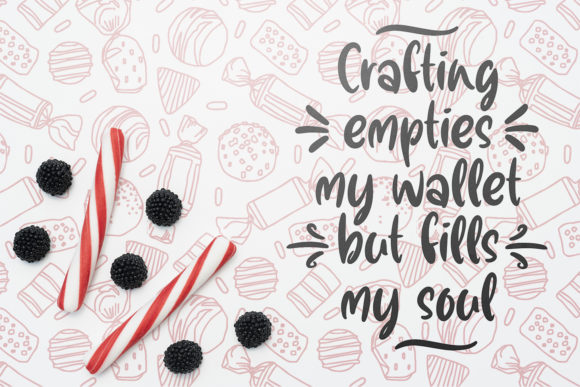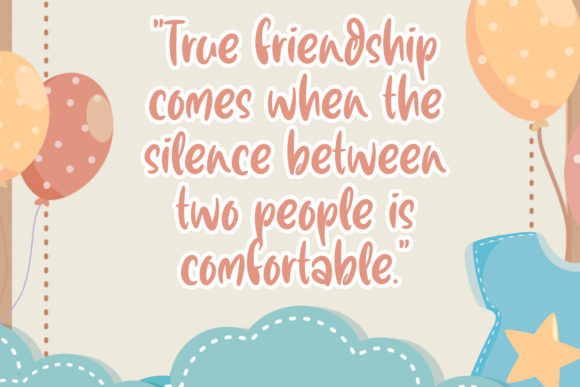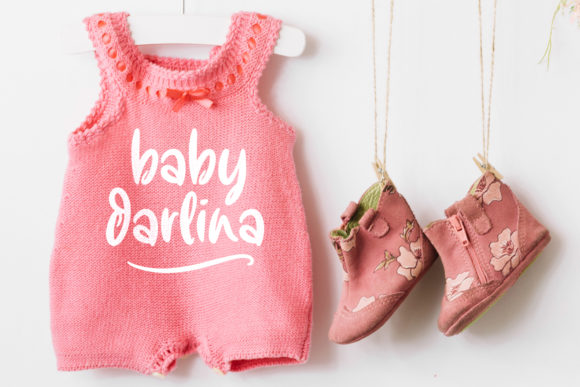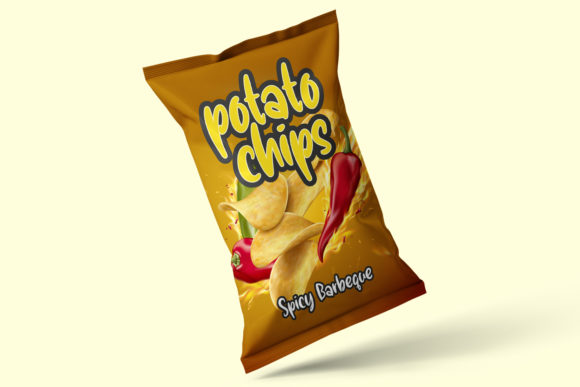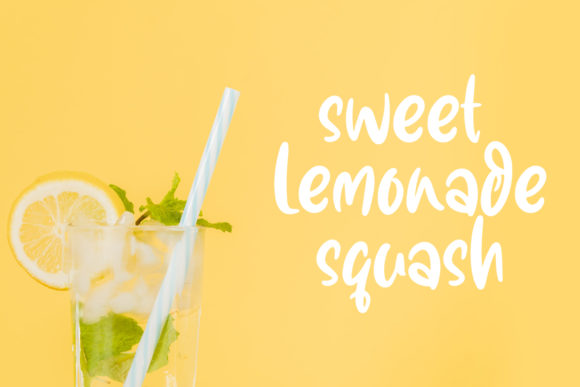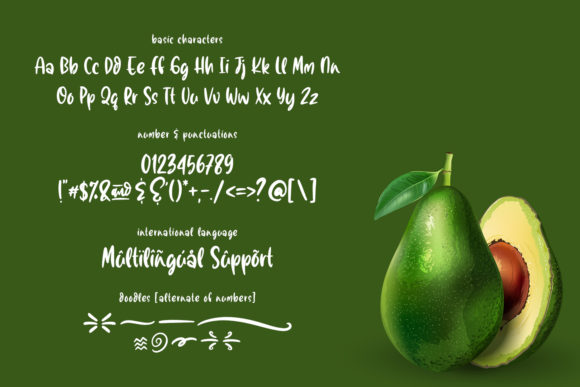
Get Ready to Shake Things Up with Alpukat Kocok Font
Have you ever stumbled upon a font that instantly sparks your creativity and makes you want to dive in headfirst? For many designers, this moment is like a treasure hunt – where the thrill of discovery meets the excitement of bringing a new idea to life. For me, that moment happened when I laid eyes on the charming Alpukat Kocok Font.
As a simple yet quirky display font, Alpukat Kocok Font is the perfect companion for designers looking to add a touch of personality to their projects. Its trendy and incredibly neat style makes it an excellent choice for anyone seeking to create visually appealing and engaging content. Whether you’re a seasoned pro or a budding designer, this beautiful font is sure to inspire you to explore its endless variations.
Alpukat Kocok Font Key Features
• Font Family: Alpukat Kocok, a unique and creative font designed for various applications.
• Unique Characteristics: Alpukat Kocok features a playful, handwritten style with subtle imperfections, making it perfect for creative projects and designs that require a personal touch.
Alpukat Kocok Font Review
Overall, I think Alpukat Kocok Font is a charming and unique font that can add some personality to your design projects. ✨ It’s a great choice for those who want to stand out from the usual sans-serif fonts. Here are some things that work well:
• ✨ Its playful and whimsical feel makes it perfect for creative projects like children’s books, posters, and advertisements.
• ✨ The font’s bold and rounded edges give it a friendly and approachable vibe, making it suitable for branding and logo design.
• ✨ The font is highly customizable, with various weights and styles available, allowing designers to experiment and find the perfect fit for their project.
• ⚠️ The font may not be suitable for formal or professional projects, as it may come across as too casual or playful.
• ⚠️ Some users may find the font’s irregularities and imperfections distracting, especially when used for large blocks of text.
• ⚠️ The font may not be fully compatible with all operating systems or devices, which could lead to display issues.
Overall, I think Alpukat Kocok Font is a great addition to any designer’s toolkit, but it’s essential to use it thoughtfully and consider the context in which it will be used.
For best results, use Alpukat Kocok font for headings and titles, as it is a bold and playful font.
Use Alpukat Kocok font to create eye-catching headings and titles in your designs.
Use Alpukat Kocok font to add a playful touch to your presentations and documents.
Alpukat Kocok font is perfect for:
• Creative headings and titles.
• Food and beverage branding.
• Playful and casual designs.
Remember to use Alpukat Kocok font sparingly to avoid overwhelming your design.
Alternatives to Alpukat Kocok Font
Great Vibes Font is a beautiful, elegant script font that is perfect for adding a touch of sophistication to your designs. It is ideal for use in headings, logos, and other high-impact elements. Compared to Alpukat Kocok Font, Great Vibes Font has a more refined and polished look, making it suitable for a wider range of design applications.
Alex Brush Font is a handwritten font that is perfect for adding a personal touch to your designs. It is ideal for use in titles, headings, and other elements where you want to convey a sense of warmth and personality. Compared to Alpukat Kocok Font, Alex Brush Font has a more organic and hand-drawn feel, making it suitable for designs that require a more human touch.
Pacifico Font is a beautiful, elegant script font that is perfect for adding a touch of sophistication to your designs. It is ideal for use in headings, logos, and other high-impact elements. Compared to Alpukat Kocok Font, Pacifico Font has a more refined and polished look, making it suitable for a wider range of design applications. However, Pacifico Font has a more modern and sleek feel, making it suitable for designs that require a more contemporary look.